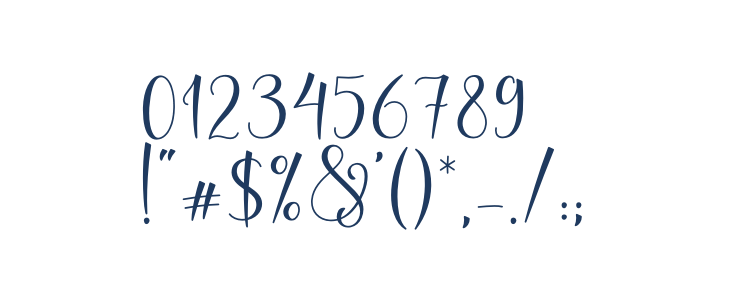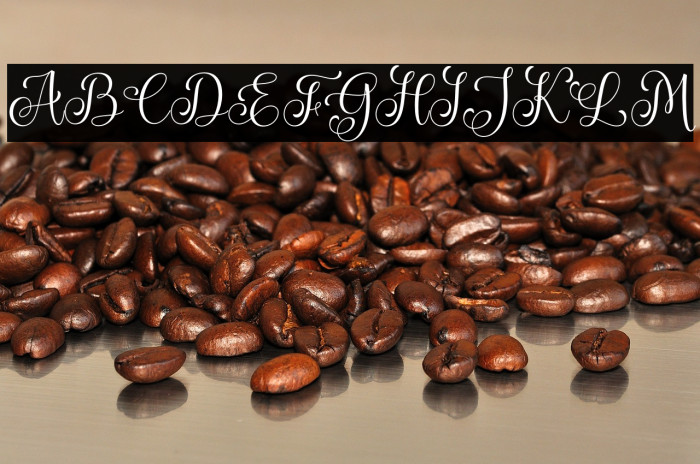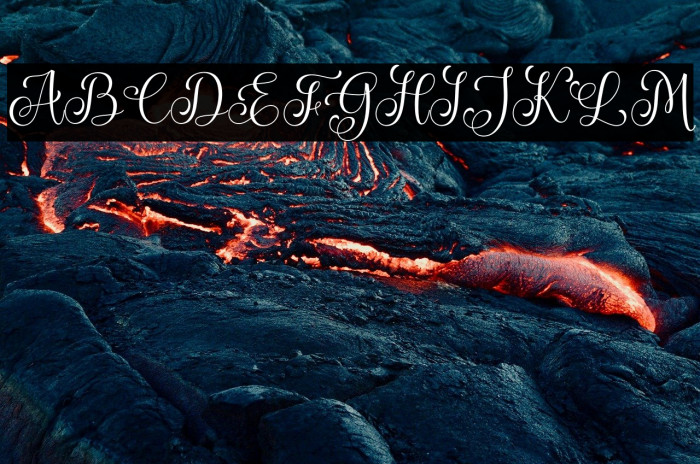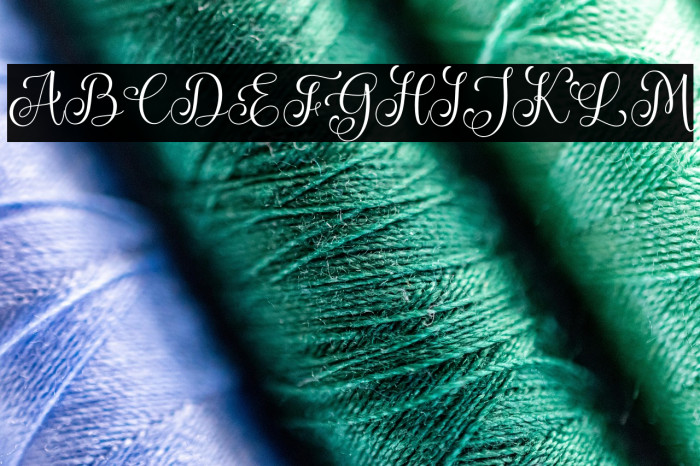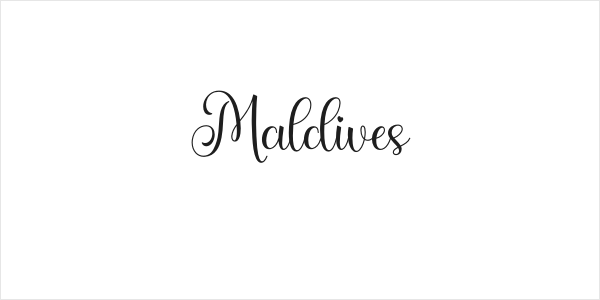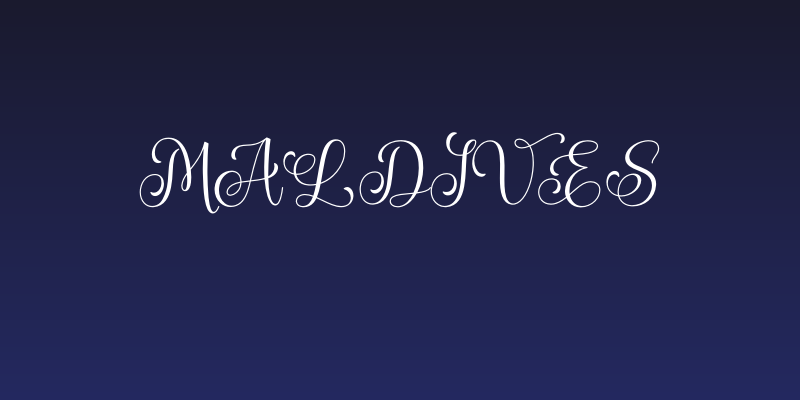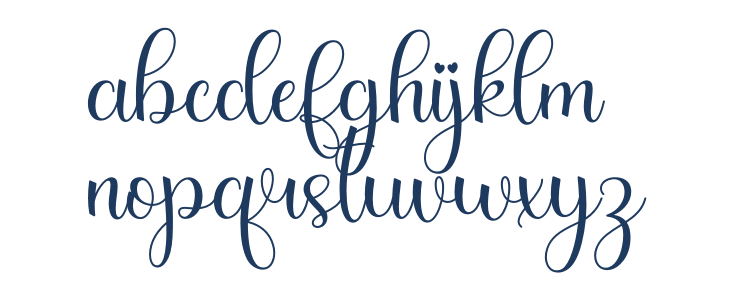
Maldives Font
Maldives Description
This font features an elegant and flowing script style, characterized by its intricate swirls and loops. The uppercase letters are adorned with decorative flourishes, giving them a sophisticated and ornate appearance. The lowercase letters maintain a consistent fluidity, with some characters extending into graceful tails. The numerals are designed to complement the script style, maintaining a balance between readability and decorative flair. Special characters are integrated seamlessly, enhancing the font's overall aesthetic. This font is ideal for projects that require a touch of elegance and sophistication.
| Proposed Projects | Wedding invitations, luxury branding, greeting cards, and elegant packaging design. |